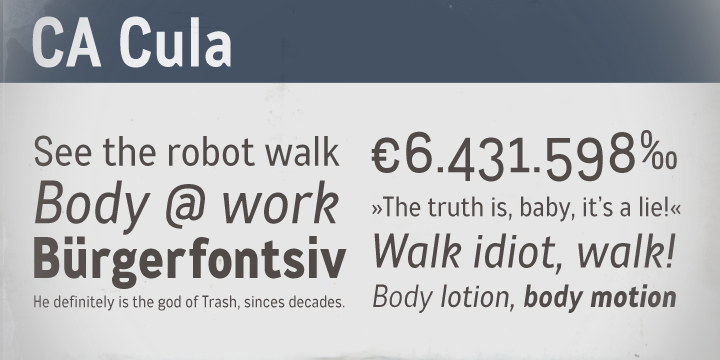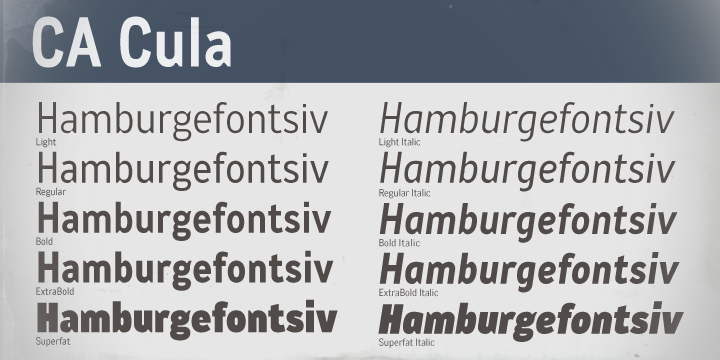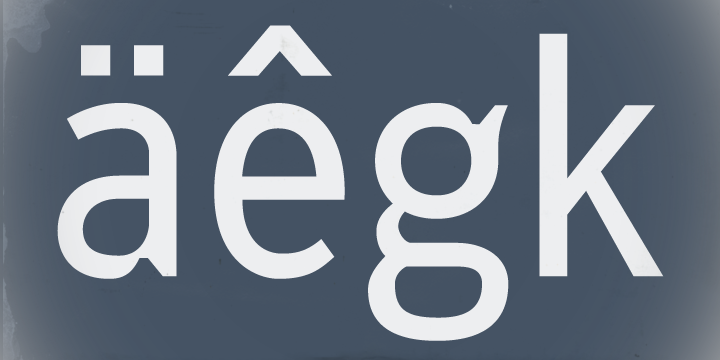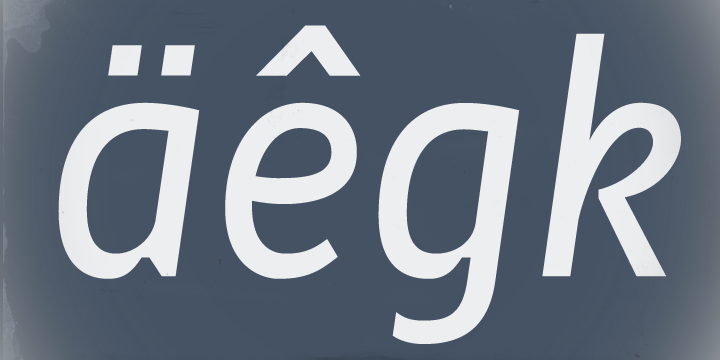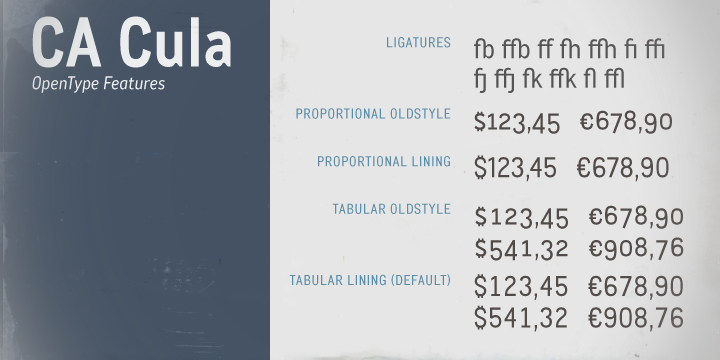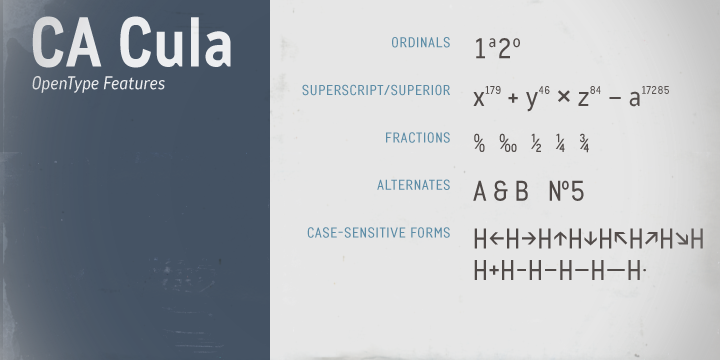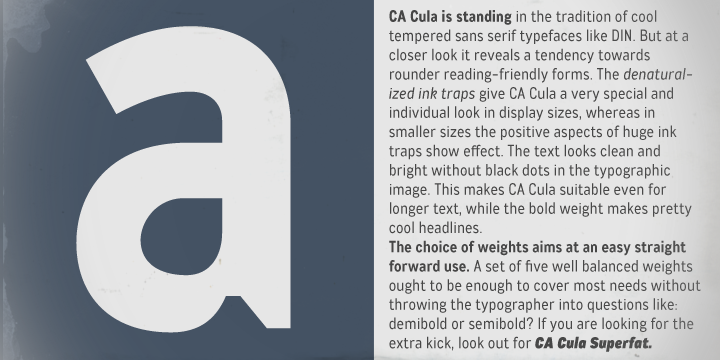
CA Cula Font Family
CA Cula is standing in the tradition of cool tempered sans serif typefaces like DIN. But at a closer look it reveals a tendency towards rounder reading-friendly forms.
The denaturalized ink traps give CA Cula a very special and individual look in display sizes, whereas in smaller sizes the positive aspects of huge ink traps show effect. The text looks clean and bright without black dots in the typographic image. This makes CA Cula suitable even for longer text, while the bold weight makes pretty cool headlines.
The choice of weights aims at an easy straight forward use. A set of five well balanced weights ought to be enough to cover most needs without throwing the typographer into questions like: demibold or semibold? If you are looking for the extra kick, look out for CA Cula Superfat.